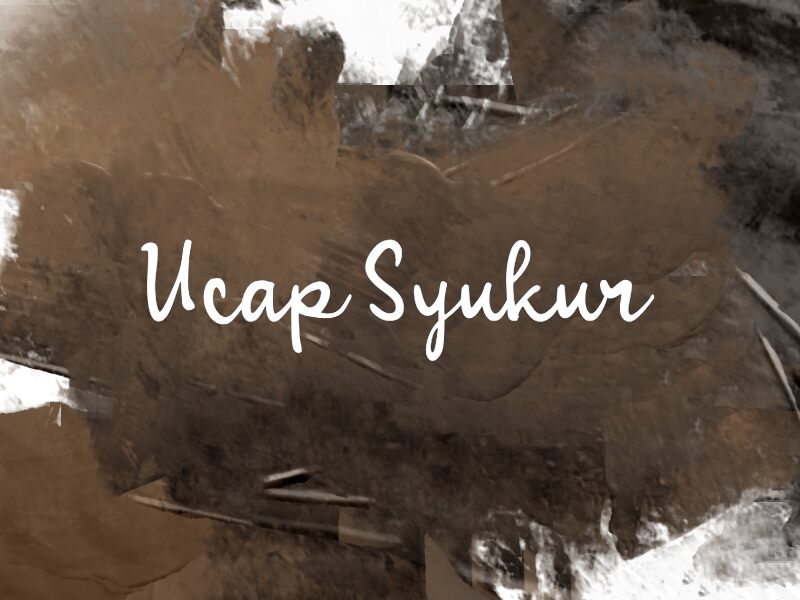
Ucap Syukur font from wepfont.com is a free handwritten font with a smooth flow and a natural handwriting feel. The informal style is reflected in the casual elegance of its letterforms which have an unparalleled relaxed and approachable warmth. Full of character, this set captures an authentic look and brings a personal touch to all projects it's applied to, a quality which many designers seek but rarely find.
Ucap Syukur is your go-to typography for greeting cards, quotes, wedding invitations, business cards, magazine covers, posters, stationery designs, and headlines. Its legibility makes it a readable free font in editorial publications.
Ucap Syukur is a unique and stylish free font that combines elegance with a contemporary flair. Ideal for various design projects, this font download provides a versatile option for both personal and commercial use. Whether you're working on invitations, branding, or any creative venture, Ucap Syukur adds a touch of sophistication.